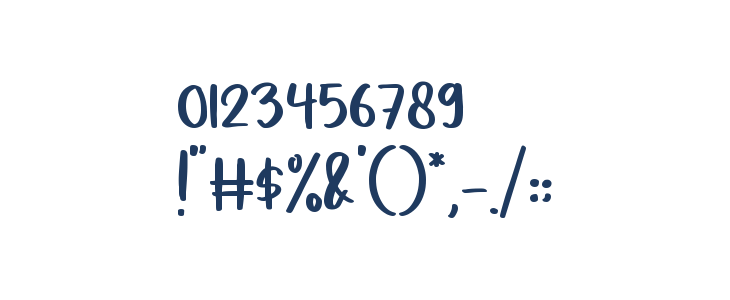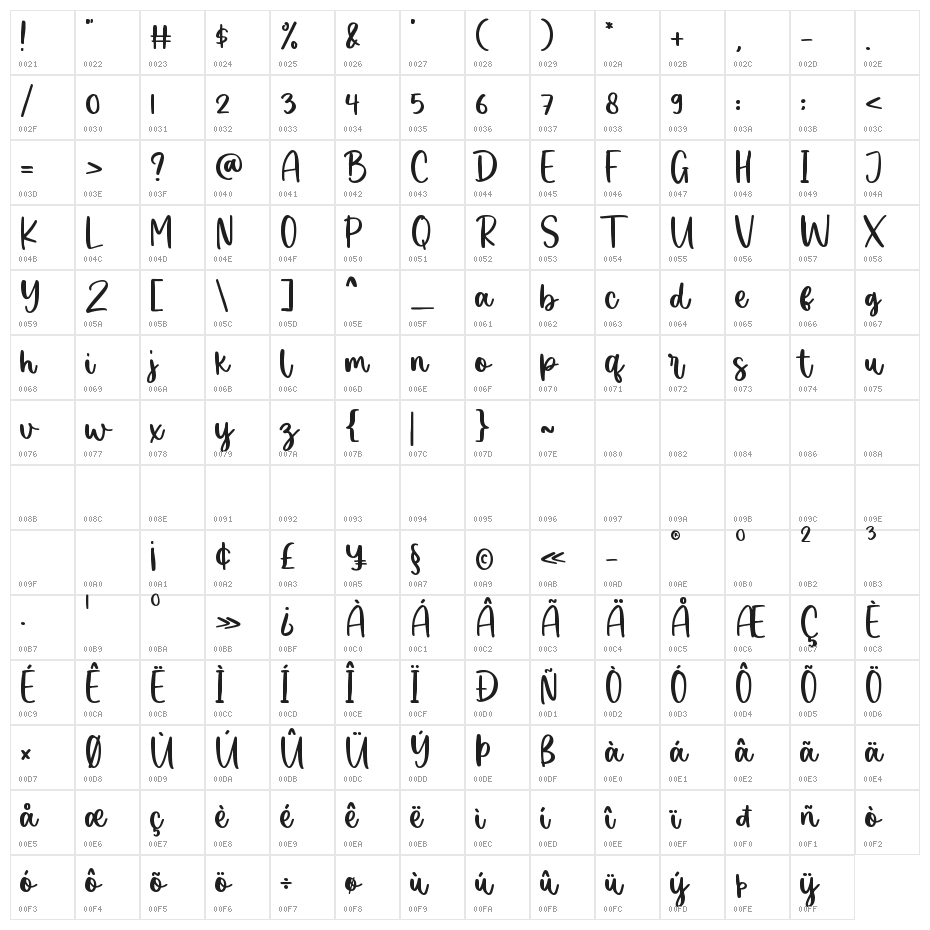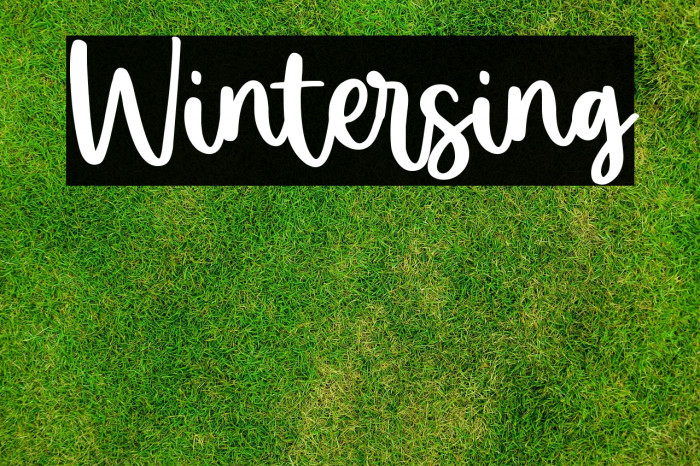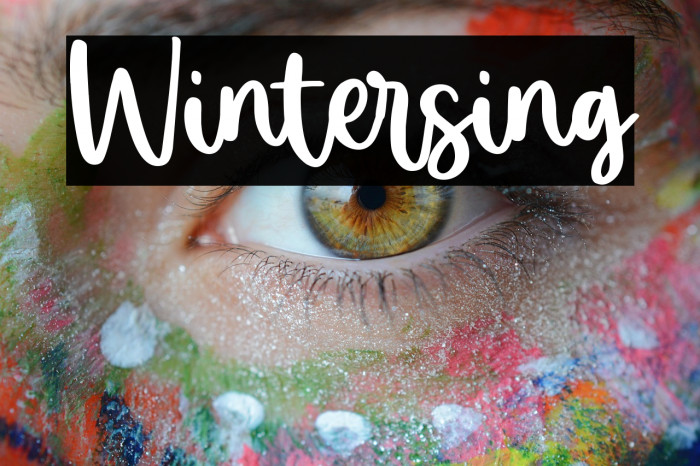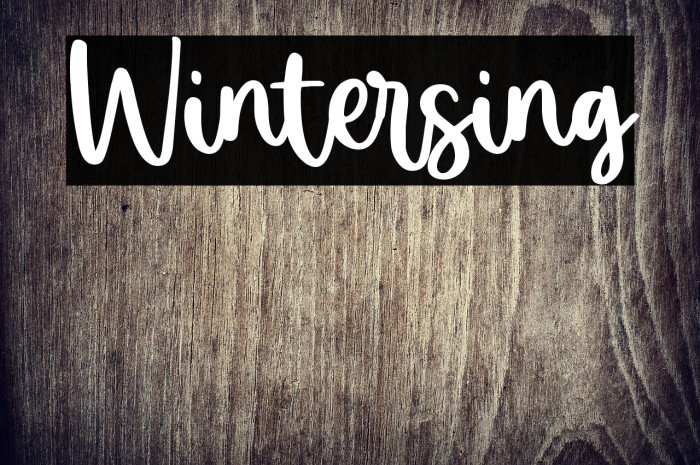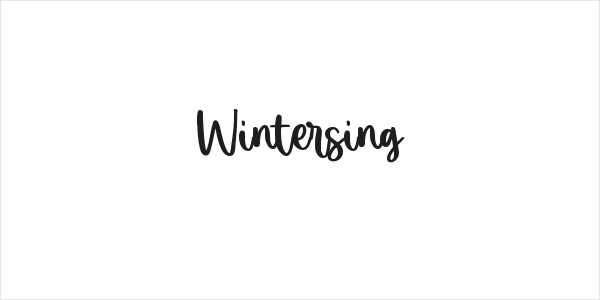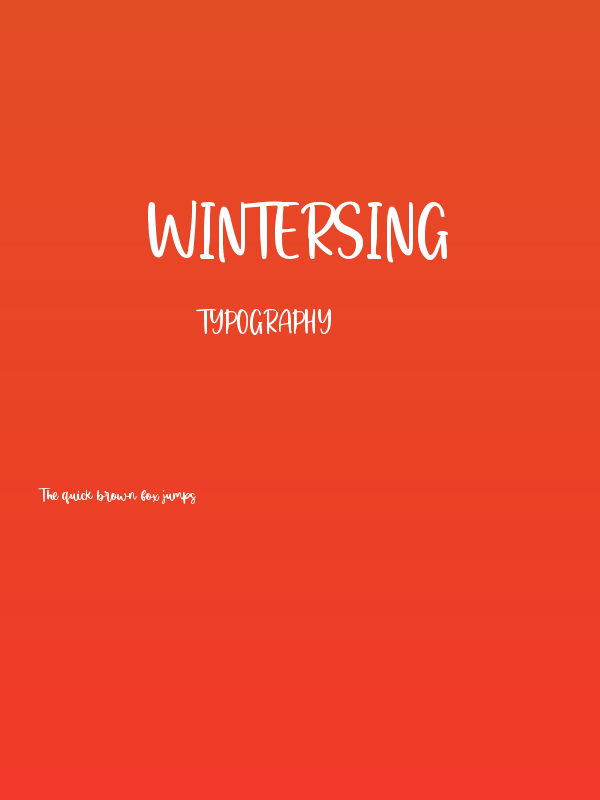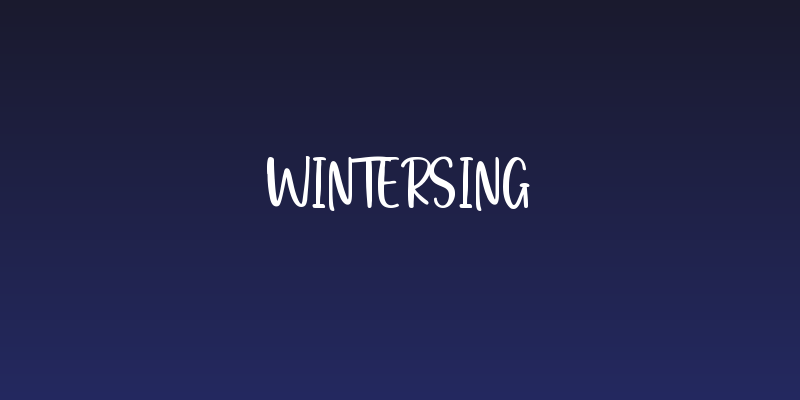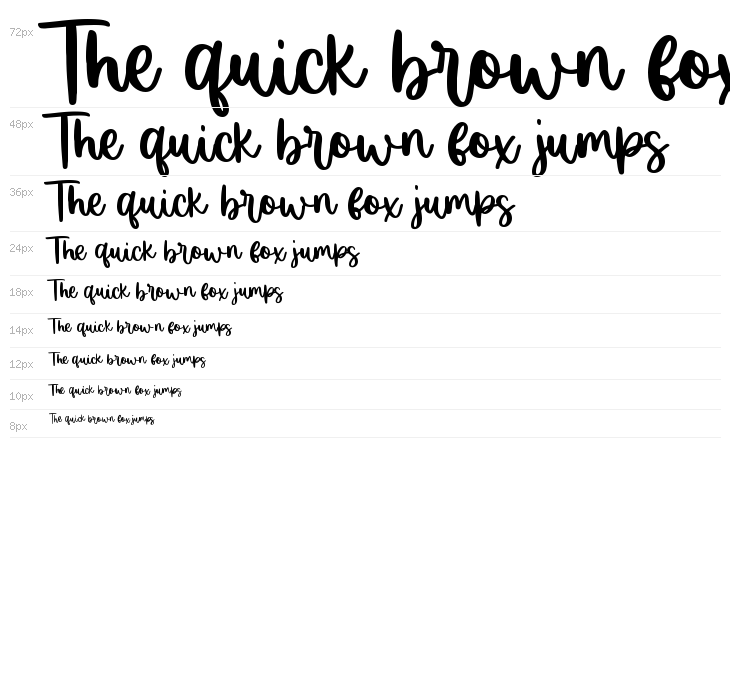
Wintersing Font
Wintersing Description
This font features a playful and casual handwritten style, characterized by its smooth, flowing lines and slightly irregular shapes that give it a personal touch. The uppercase letters are bold and rounded, while the lowercase letters maintain a consistent flow, enhancing the handwritten feel. The numerals and special characters are crafted to match the overall aesthetic, ensuring a cohesive look. This font's informal style makes it ideal for projects that require a friendly and approachable appearance.
| Use Case | Logos, Headlines, Informal text |
| Proposed Projects | Greeting cards, social media graphics, personal branding, and informal invitations. |